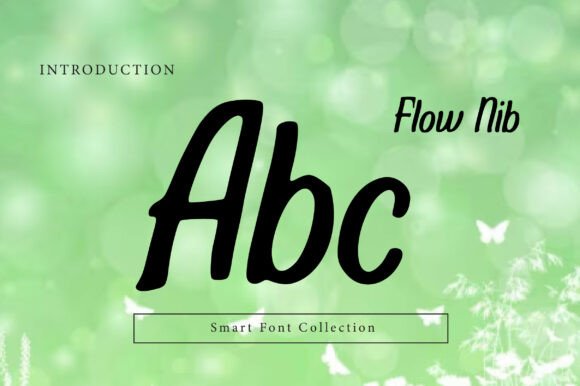
Introducing Flow Nib Font: The Epitome of Elegance and Fluidity
The Flow Nib font is an exquisite display of fluid motion and organic grace. Designed to mimic the natural movement of a flexible calligraphy pen, this Flow Nib typeface captures a sense of effortless elegance that is often lost in digital design. It strikes a perfect balance between a casual handwritten script and a structured display font, making it incredibly versatile for designers who want to inject a “human touch” into their digital workspace.
The Art of Fluid Motion
The Flow Nib font is a masterful creation that embodies the beauty of fluid motion. Its sweeping curves and varying stroke weights give the font a rhythmic quality that guides the eye naturally across the page. This unique characteristic makes it perfect for designs that require a sense of movement and dynamism. The font’s fluidity is reminiscent of traditional calligraphy, where the writer’s hand and pen move in harmony to create beautiful, expressive letterforms.
One of the standout features of the Flow Nib font is its versatility. It can be used in a wide range of design applications, from high-end branding and editorial layouts to personal projects and crafts. The font’s elegance and sophistication make it perfect for designs that require a touch of luxury, while its casual and approachable feel ensure it remains accessible and engaging.
Pairing Flow Nib with Other Fonts
The Flow Nib font pairs beautifully with minimalist sans-serif fonts to create a modern, high-contrast look that is perfect for editorial layouts. This combination adds a touch of sophistication and elegance to any design, making it ideal for designers who want to create a lasting impression. The contrast between the fluid, organic curves of Flow Nib and the clean, geometric lines of sans-serif fonts creates a visually appealing combination that draws the eye and holds attention.
Design Applications for Flow Nib
The Flow Nib font is perfect for a wide range of design applications, including:
• Boutique branding: Use Flow Nib to create elegant and sophisticated branding for high-end boutiques, luxury goods, and premium services.
• Editorial layouts: Pair Flow Nib with sans-serif fonts to create stunning editorial layouts that showcase your content in style.
• Personal projects: Add a touch of elegance and sophistication to your personal projects, such as scrapbooking, card making, and journaling.
• Packaging design: Use Flow Nib to create beautiful and eye-catching packaging for luxury goods, such as wine labels, skincare products, and gourmet foods.
Why Choose Flow Nib?
There are many reasons why designers and crafters should choose the Flow Nib font for their projects. Here are just a few:
• Unique and distinctive: Flow Nib is a one-of-a-kind font that adds a touch of elegance and sophistication to any design.
• Versatile: The font can be used in a wide range of design applications, from high-end branding to personal projects.
• Easy to read: Despite its elegant and cursive nature, Flow Nib is surprisingly easy to read, making it perfect for body text and headlines.
• Customizable: The font comes with a range of customization options, allowing you to tailor it to your specific design needs.
The Flow Nib font is a stunning display of fluid motion and organic grace. Its unique blend of elegance and sophistication makes it perfect for designers and crafters who want to add a touch of luxury to their projects. With its versatility, readability, and customization options, Flow Nib is an excellent choice for anyone looking to elevate their design work. Whether you’re working on high-end branding, editorial layouts, or personal projects, the Flow Nib font is sure to impress.